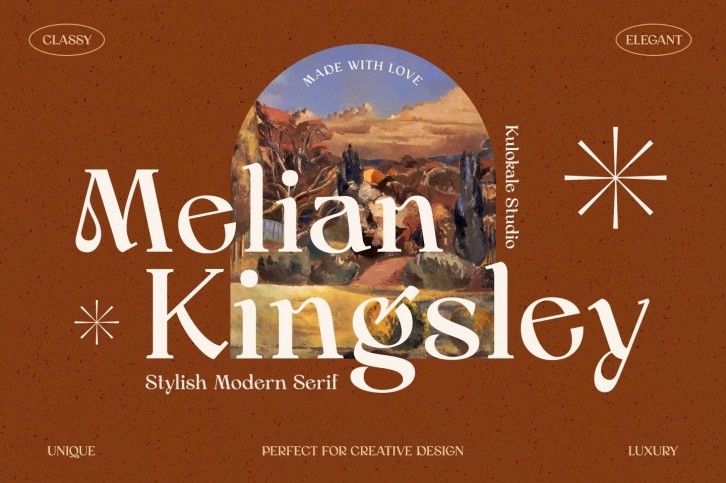
Modern Display Serif is a great font that was designed by Kulokale Studio. Imagine the amount of combinations you can create using this font! The archive is 5.88 MB and it was released on January 12, 2022. Modern Display Serif looks beautiful on wedding invitations, greeting cards, logos, posters, labels, t-shirt designs, logos, business cards and is perfect for use in ink or watercolor works, fashion, magazines, packaging and food menus, children's books and more!